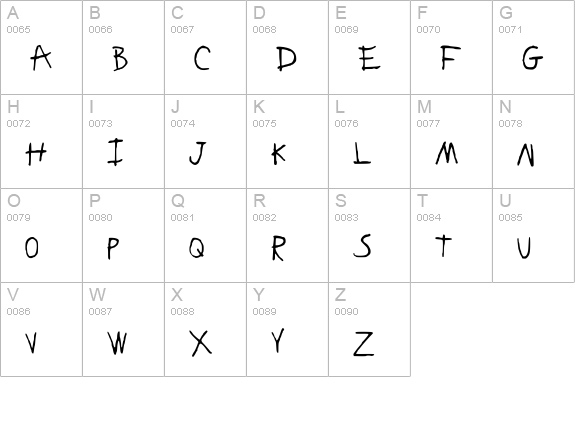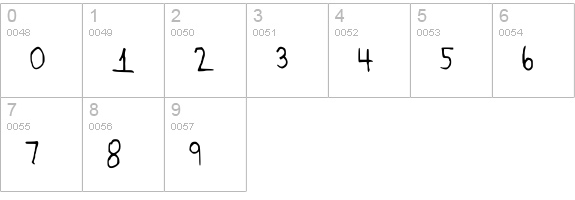
DearKatieNBP Font Details
Introducing DearKatieNBP, a stunningly elegant font that captures the essence of sophistication and modernity. With its sleek lines and graceful curves, this font embodies a sense of timeless beauty that will elevate any design project to new heights. DearKatieNBP is not only visually captivating, but it also offers a seamless reading experience. Its carefully crafted letterforms ensure optimal legibility, making it a perfect choice for both digital and print applications. Whether you're designing a logo, creating a website, or crafting a captivating headline, DearKatieNBP will effortlessly bring your ideas to life. What sets DearKatieNBP apart is not just its beauty and versatility, but also the fact that it is available for free. That's right, you heard it correctly! DearKatieNBP can be freely downloaded at FontsMarket.com, a trusted platform for high-quality fonts. This means that you can enjoy the benefits of this exquisite typeface without any financial burden. So, why wait? Unlock your creativity and give your designs a touch of elegance with DearKatieNBP. Download it for free today at FontsMarket.com and let your imagination soar.